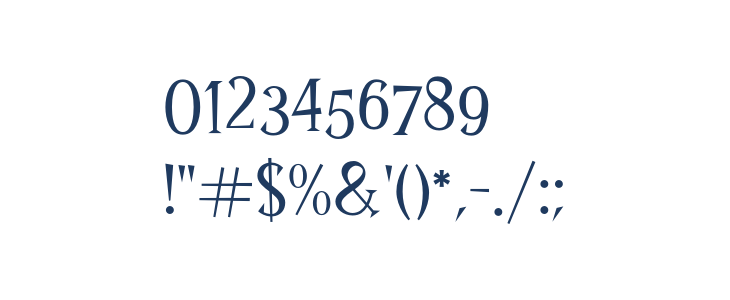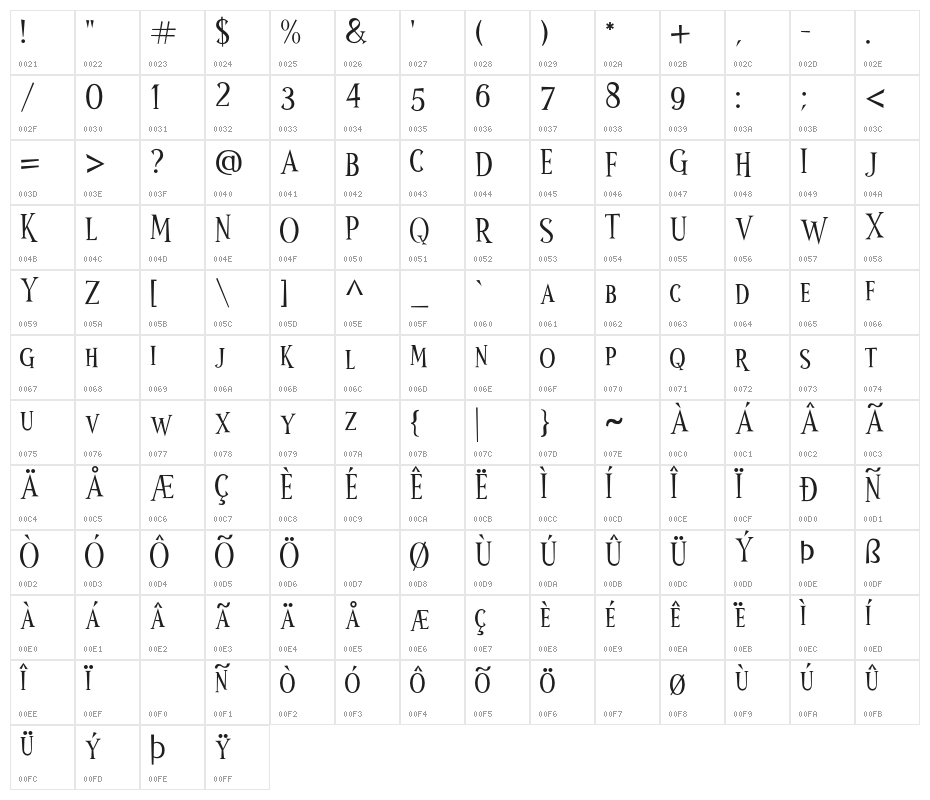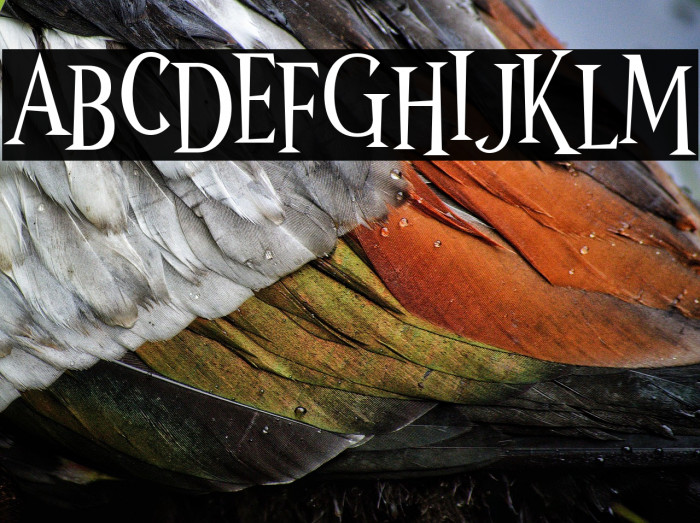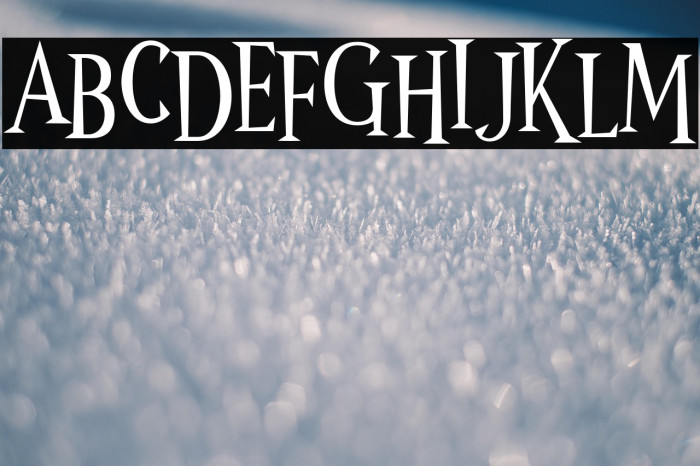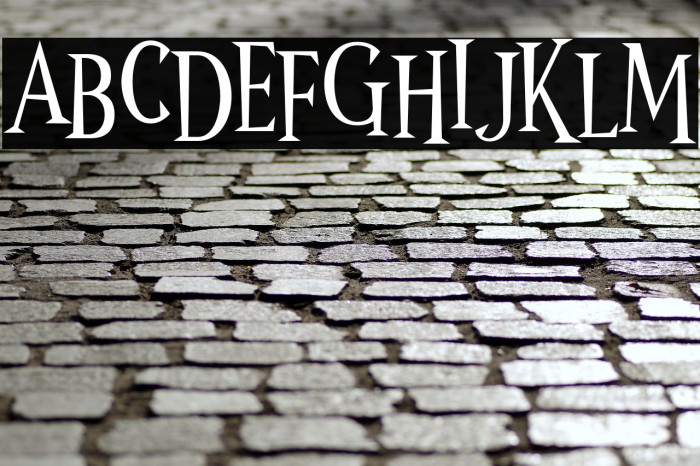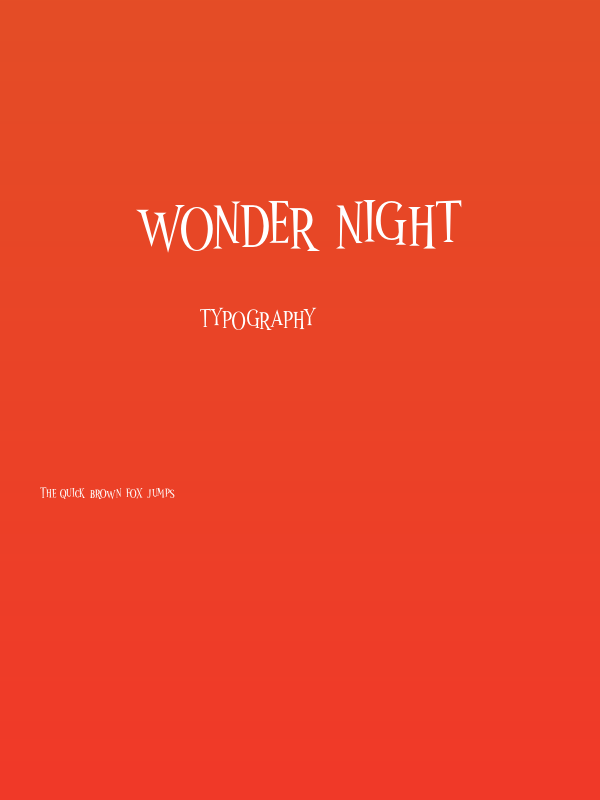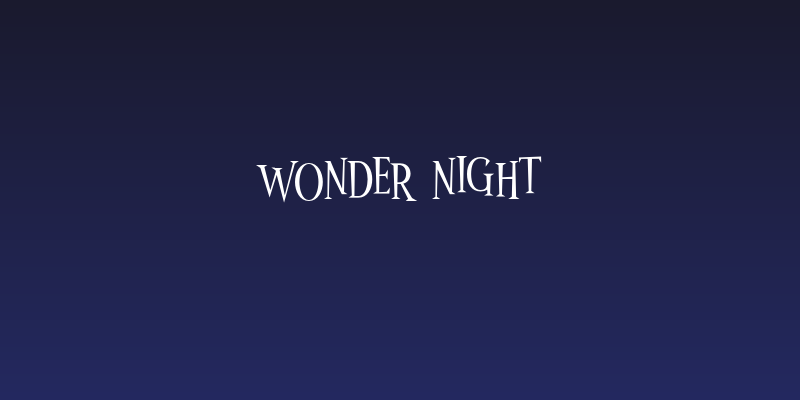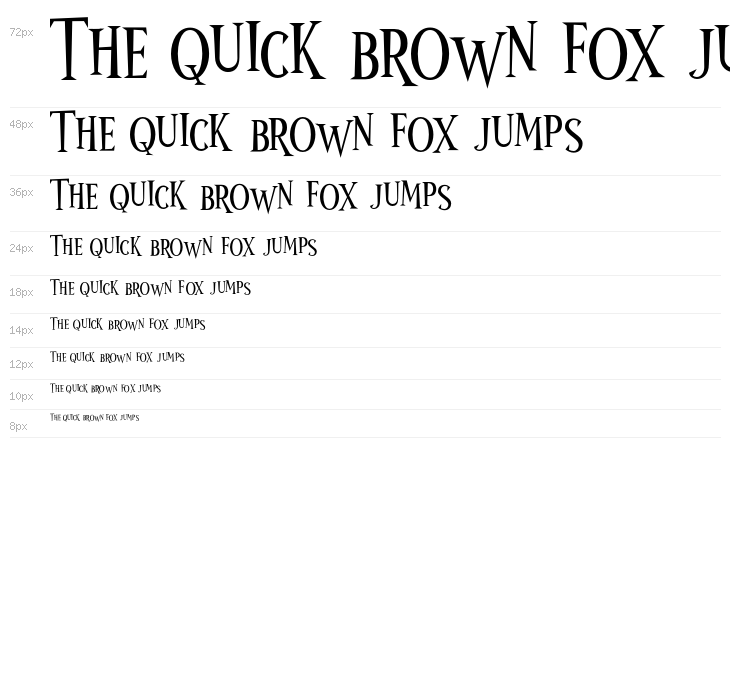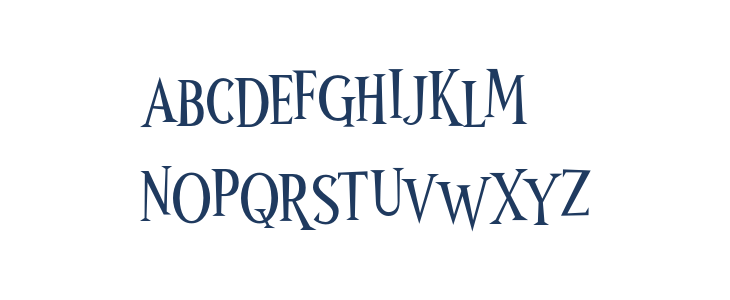
Wonder Night Font
Wonder Night Description
This font features a distinctive and artistic style with elongated and slightly curved serifs that give it a whimsical and enchanting appearance. The characters are tall and narrow, with a playful yet elegant flair. The uppercase letters exhibit a dramatic presence, while the lowercase letters maintain a consistent and harmonious flow. The numbers are bold and clear, ensuring readability. Special characters are designed with the same artistic touch, making them stand out. This font is perfect for creating a magical and mysterious atmosphere, suitable for projects that require a touch of fantasy and creativity.